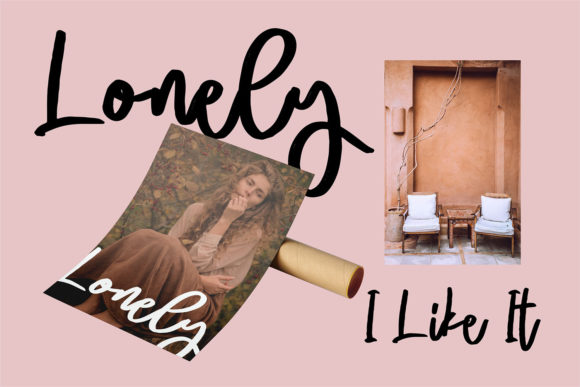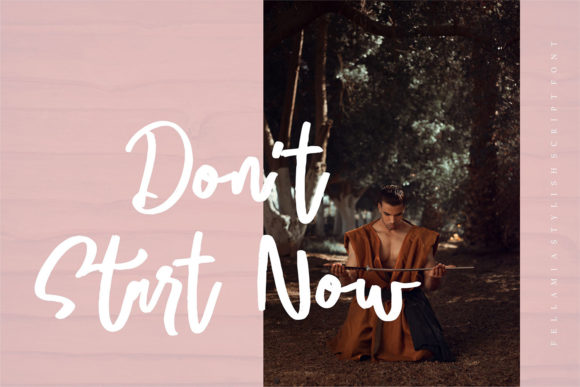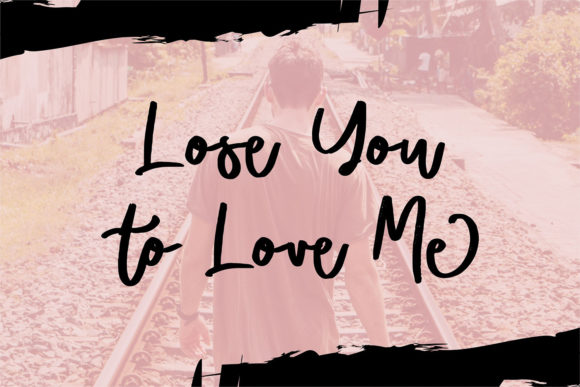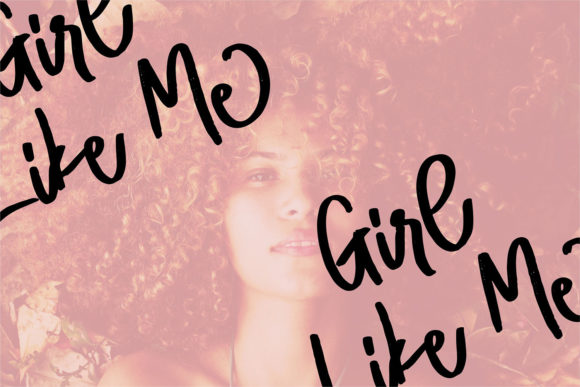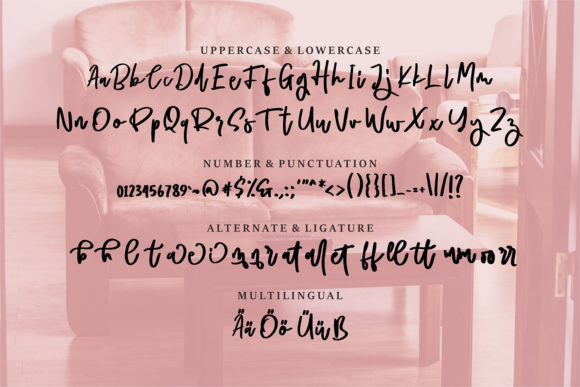
Fellami Font: Elevate Your Designs with a Cool, Fashionable Script
Are you on the hunt for a font that adds a touch of warmth, romance, and playfulness to your projects? Look no further than Fellami, a stunning cursive paint brushed script font that’s sure to turn your ideas into real works of art. In this article, we’ll dive into the world of Fellami, exploring its unique features, uses, and benefits for designers and crafters alike.
The Essence of Fellami: A Cool, Fashionable Script
Fellami is more than just a font – it’s an experience. With its smooth, cursive strokes and paint-brushed texture, this font exudes a sense of coolness and fashionability that’s hard to resist. Whether you’re working on a branding project, a wedding invitation, or a social media graphic, Fellami is the perfect choice for adding a touch of sophistication and whimsy.
Warm, Romantic, and Jolly: The Emotional Appeal of Fellami
So, what makes Fellami so special? For starters, its warm and romantic vibe is perfect for creating emotional connections with your audience. The font’s gentle, flowing curves evoke feelings of joy and playfulness, making it ideal for projects that require a lighthearted touch. At the same time, Fellami’s elegance and sophistication ensure that it remains suitable for more formal applications, such as luxury branding or high-end events.
Endless Variations: The Fun of Working with Fellami
One of the most exciting things about Fellami is its incredible versatility. With a wide range of variations and alternates, you can experiment with different styles and effects to create a truly unique look. Whether you’re a seasoned designer or a crafting enthusiast, Fellami invites you to have fun and explore its endless possibilities. Try pairing it with bold graphics, subtle textures, or vibrant colors to see what amazing creations you can come up with!
Fellami is a dream come true for designers and crafters who want to add a personal touch to their work. Whether you’re creating:
- Branding materials, such as logos, business cards, or letterheads
- Marketing collateral, like brochures, flyers, or social media graphics
- Wedding invitations, party decorations, or other celebratory materials
- Handmade crafts, like cards, gift tags, or DIY projects
Fellami is the perfect companion to help you bring your ideas to life.
Tips and Tricks for Getting the Most out of Fellami
To help you get started with Fellami, here are a few expert tips:
- Experiment with different font sizes and colors to create visual interest
- Pair Fellami with contrasting fonts to add depth and hierarchy
- Use the font’s built-in alternates and swashes to add personality and flair
- Don’t be afraid to combine Fellami with other design elements, like illustrations or textures
Remember, the key to working with Fellami is to have fun and be creative!
In conclusion, Fellami is an exceptional font that’s sure to captivate designers and crafters alike. With its unique blend of coolness, fashionability, and playfulness, this cursive paint brushed script font is the perfect choice for adding a touch of warmth and romance to your projects. So why wait? Dive into the world of Fellami today and discover the endless possibilities waiting for you!